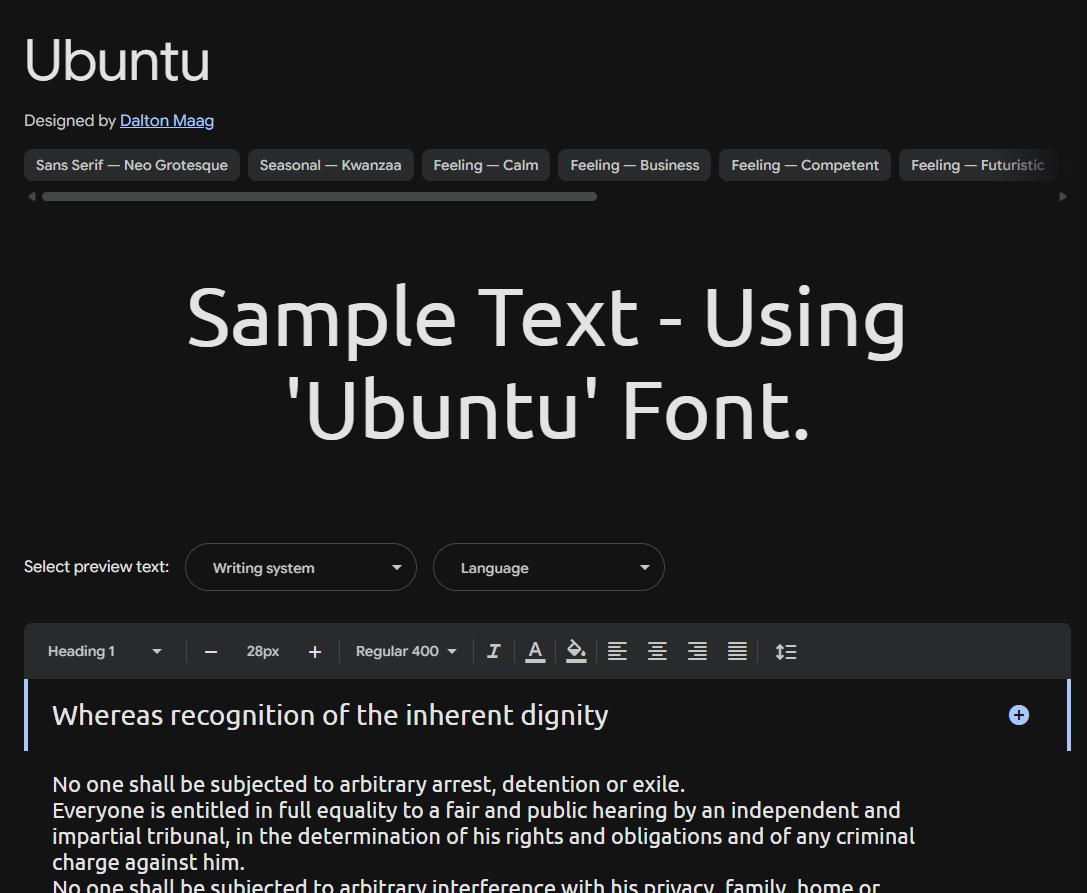
The Ubuntu typeface, meticulously engineered by the Dalton Maag foundry, stands as a benchmark of humanist sans-serif design specifically optimized for screen legibility within an open-source framework. Spanning eight distinct styles-ranging from Light to Bold with corresponding italics-the family leverages a distinctive curvature and generous x-height to maximize readability across varying pixel densities. By integrating advanced manual hinting and precise kerning tables, the design team ensured that the font's unique character terminals and clear glyph apertures maintain structural integrity from low-resolution terminal environments to high-definition mobile interfaces. This collaborative typographic project effectively bridged the gap between technical utility and aesthetic warmth, establishing a professional visual language that redefines the digital interface experience through rigorous engineering and semantic clarity.
The Ubuntu font family redefines the Sans Serif Neo Grotesque landscape by synthesizing high-clarity glyph geometry with a specific x-height that projects a Competent and Business-ready Stiff structure. While its technical precision evokes a Futuristic and Loud digital presence, the subtle humanist terminals introduce a Sincere, Calm, and Happy resonance that feels remarkably Vintage in traditional editorial contexts. Whether anchored in the cultural vibrancy of a Kwanzaa seasonal layout or the textured grit of a Rugged industrial interface, the typeface maintains its structural integrity through deliberate stroke modulation. This unique duality allows the Ubuntu family to oscillate between a disciplined, professional authority and an approachable warmth, ensuring that every character serves as a semantic bridge between the clinical demands of open-source software and the expressive storytelling of diverse human-centric design.
Despite its superior legibility and optimization for screen-based interfaces, the Ubuntu font family is fundamentally unsuitable for ultra-luxury branding or high-stakes legal documentation due to its distinctive spurless terminals and contemporary humanist geometry. While Dalton Maag engineered the eight-weight suite with generous x-heights and open apertures to excel within Canonical's digital ecosystem, these same technical characteristics-specifically the "u" and "n" glyphs lacking traditional strokes-convey a friendly, tech-centric accessibility that undermines the perceived gravitas and historical weight required by white-shoe law firms or heritage horology brands. Furthermore, because its glyph construction is specifically tuned for LCD subpixel rendering and mobile UI clarity, the font's rounded, approachable personality fails to achieve the "invisible" neutrality needed for dense, long-form classical typesetting, often appearing too "prosumer" for conservative financial institutions that rely on the formal rigidity of traditional serifs or neo-grotesques.
The Ubuntu font family is highly versatile and maintains exceptional clarity when used in high-resolution printed materials. Its unique spurless design and open counters minimize ink bleed, ensuring a crisp 300 DPI output across various offset printing substrates.
The family offers a comprehensive range of weights including Light, Regular, Medium, and Bold to suit diverse typographic hierarchies. With a weight range spanning from 300 to 700, the variable font technology implementation allows for precise CSS font-weight adjustments in modern rendering engines.
Ubuntu Mono provides a consistent character width that is ideal for programming environments and terminal displays. This variant utilizes specific slab-serif hints to enhance character distinction, achieving high legibility in the 8pt to 12pt range favored by software developers.
Ubuntu's contemporary aesthetic and high x-height make it an excellent choice for mobile application interfaces and small-screen navigation. The typeface's distinct rounded terminals reduce visual fatigue on OLED displays by optimizing subpixel rendering patterns at high pixel densities.
Extensive language support is a core feature, covering a wide array of scripts including full Cyrillic and Greek character sets. The font incorporates comprehensive Unicode coverage for the Latin-B and Greek-Coptic blocks, ensuring seamless internationalization for global digital products.
The typeface is engineered for comfort, allowing readers to consume long-form content without significant cognitive load or eye strain. Its balanced kerning tables and proportional spacing facilitate a rhythmic eye flow, maintaining a high words-per-minute reading rate in multi-column layouts.
Each weight in the Ubuntu family features professionally crafted true italics rather than simple slanted obliques. These cursive-inspired glyphs utilize distinct stroke modulations that enhance emphasis while maintaining consistent vertical metrics across the entire typeface family.
Ubuntu Condensed offers a narrower profile specifically designed to maximize information density in restricted layout areas. By reducing the horizontal advance width while preserving vertical proportions, this variant maintains a high legibility-to-width ratio essential for data-heavy dashboard design.
The font performs exceptionally well on older hardware and low-resolution screens due to its robust construction. Advanced TrueType hinting instructions are embedded in the font files to ensure pixel-perfect alignment and prevent anti-aliasing artifacts on 72 PPI displays.